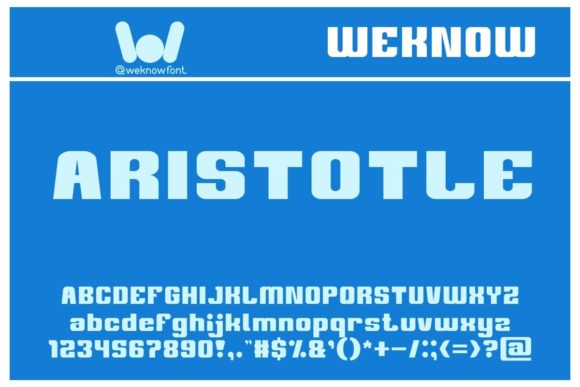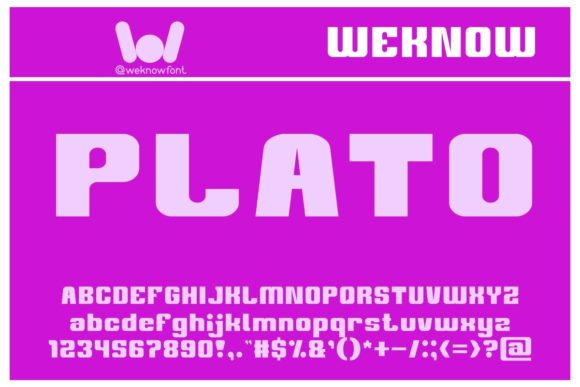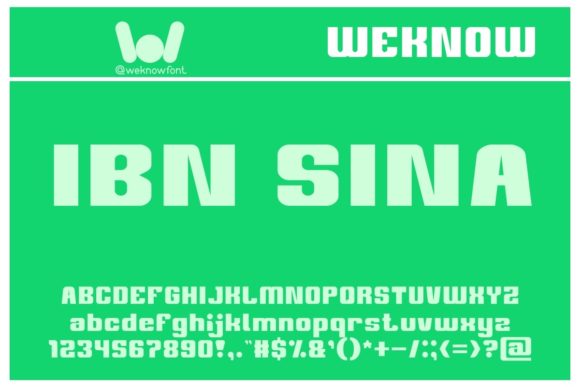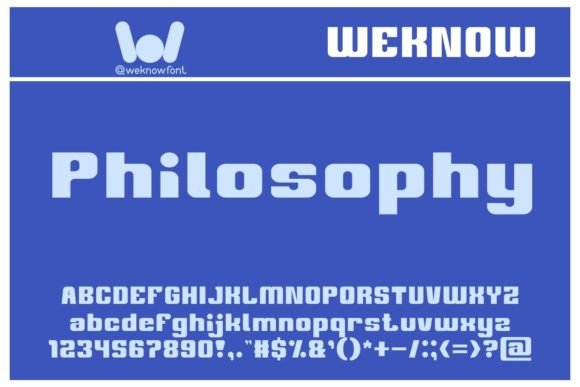
Introduction to Philosophy Font
Philosophy is a cool and bold display font.
Key Features of Philosophy Font
Why Choose Philosophy Font?
Philosophy Font offers exceptional quality and versatility, making it a valuable addition to your design toolkit. Whether you’re creating for personal projects or commercial use, Philosophy Font delivers professional results.